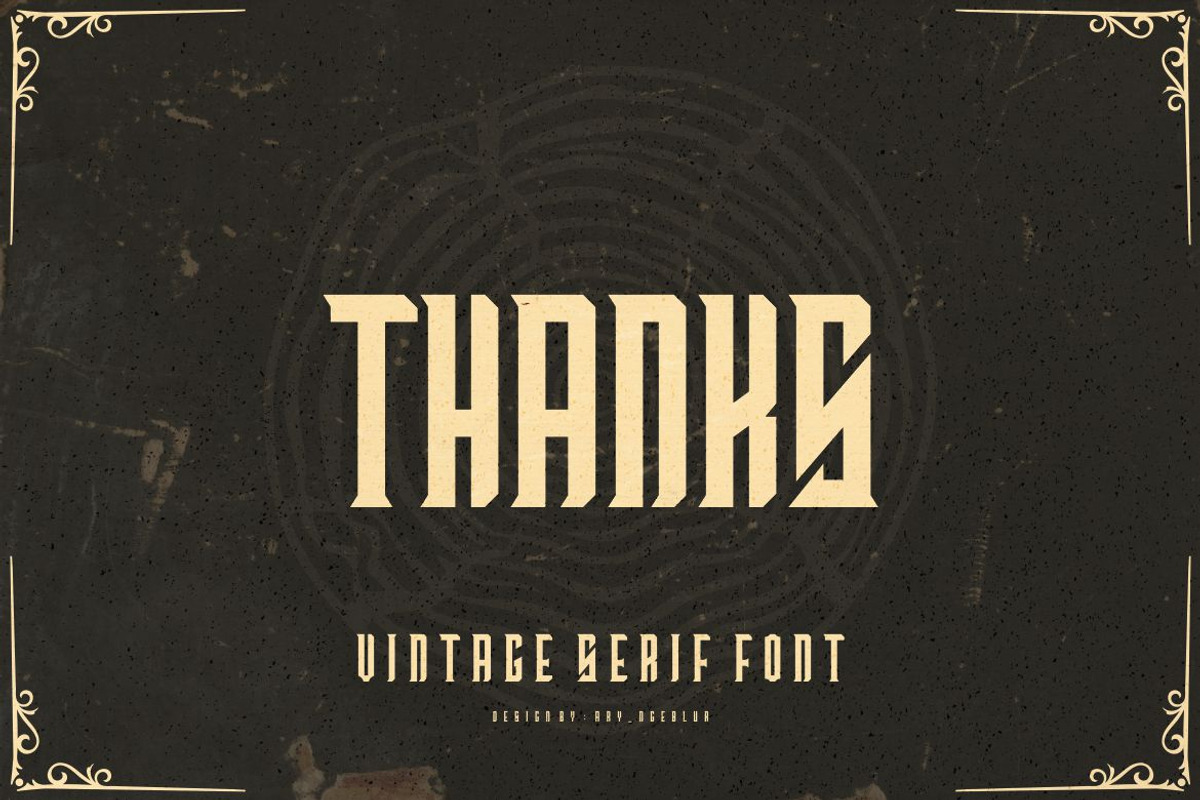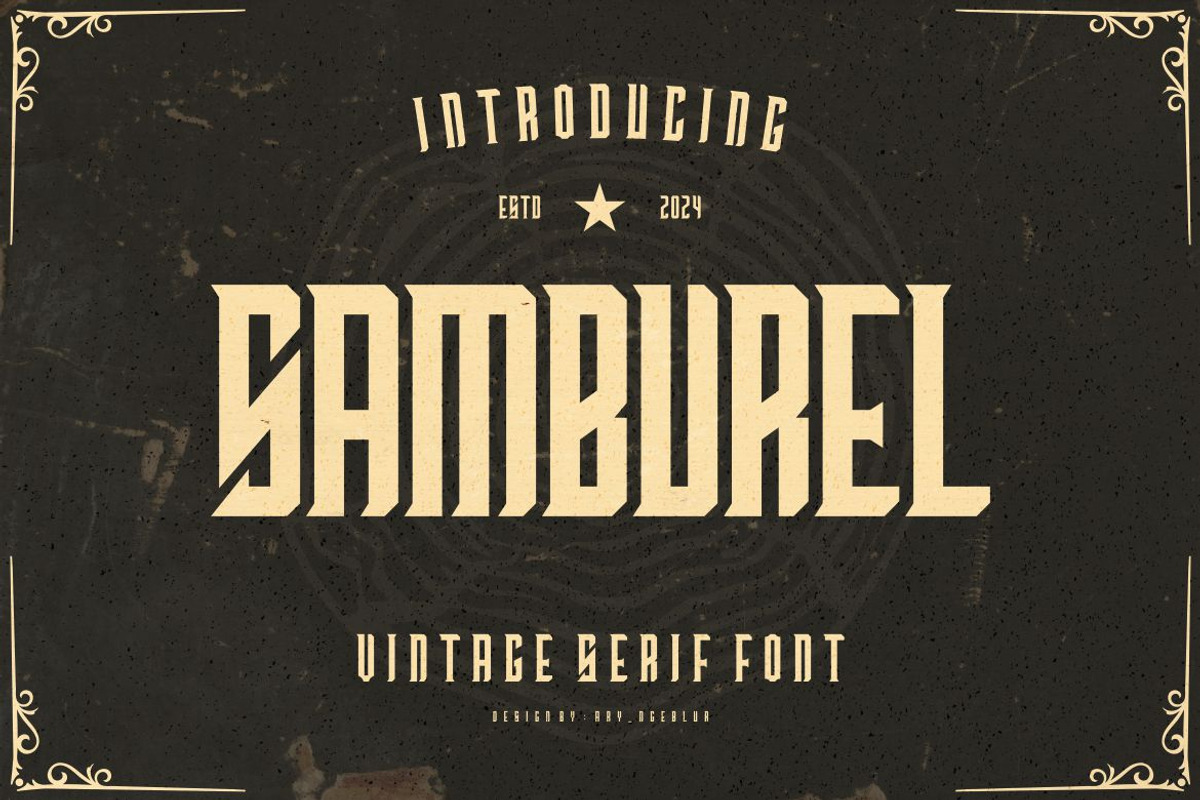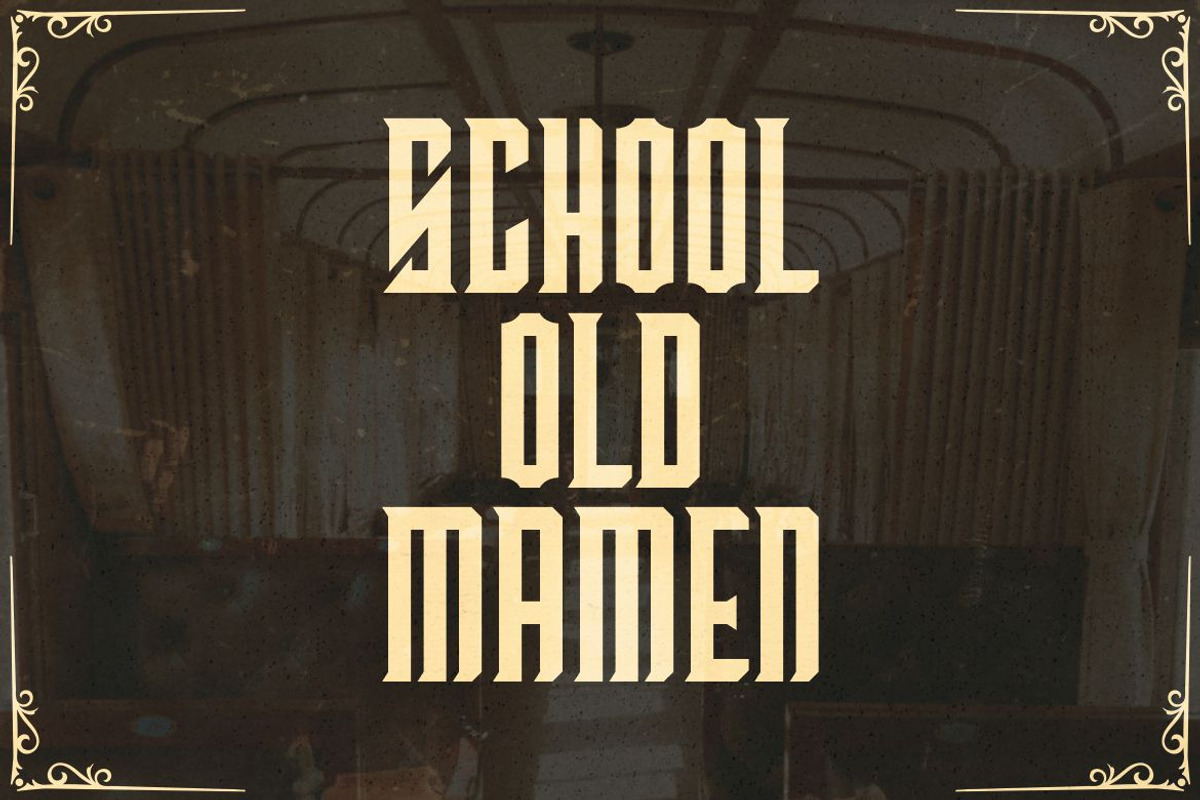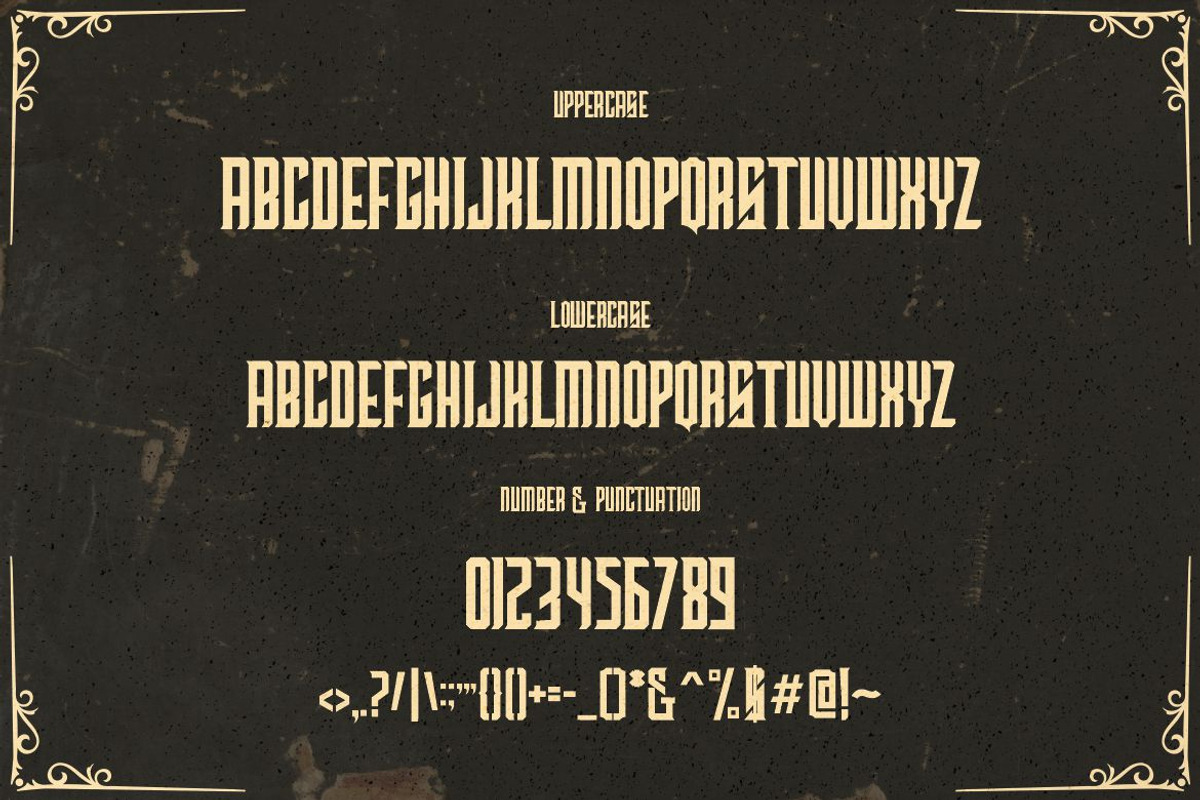
Samburel - Vintage Font Serif
Introducing Samburel , a cool and elegant modern Vintage Serif font. Elegant font feel. This font gives you a beautiful and modern atmosphere. suitable for posters, book covers, cards, merchandise, etc.